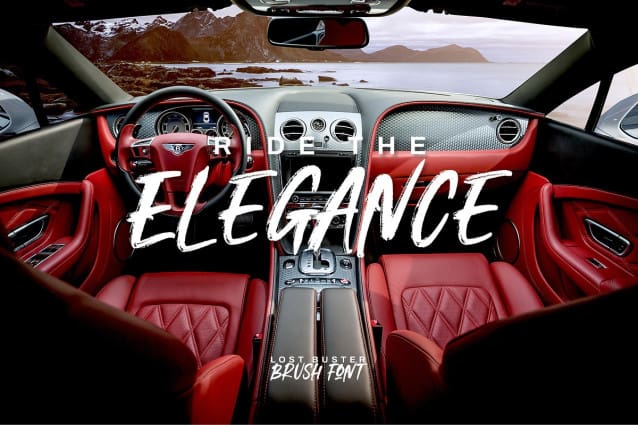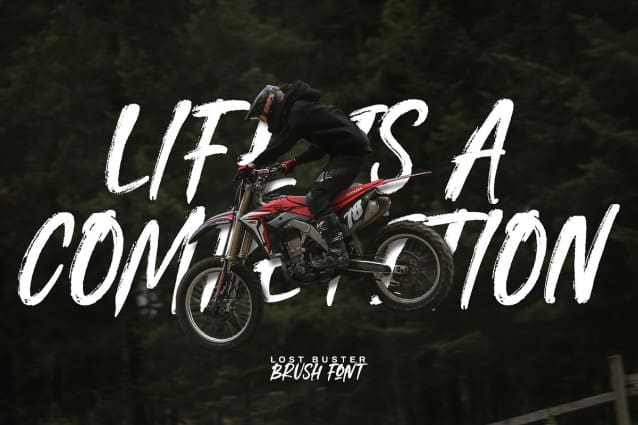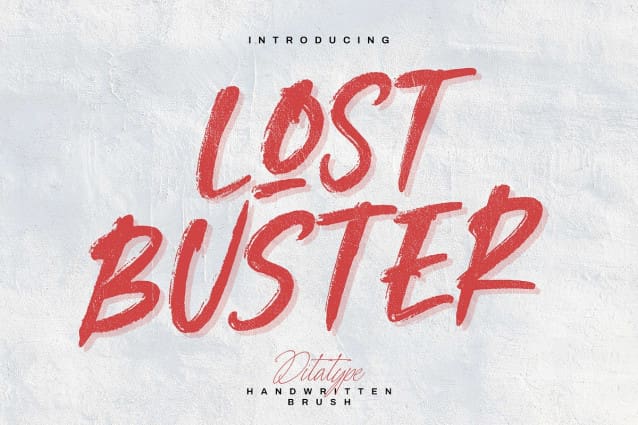
Lost Buster Font
Lost Buster Font is a capitalized handwritten font in brush details to produce a manual brush-looking display adding creativity values to designs with this font. It also gives more personal, natural impressions to make people feel close to the brand or design displayed. The advantages of a brush-detailed handwritten font are first, the unique display to get the brand or the design easily remembered and noticed, and second, legible, applicable for various media.